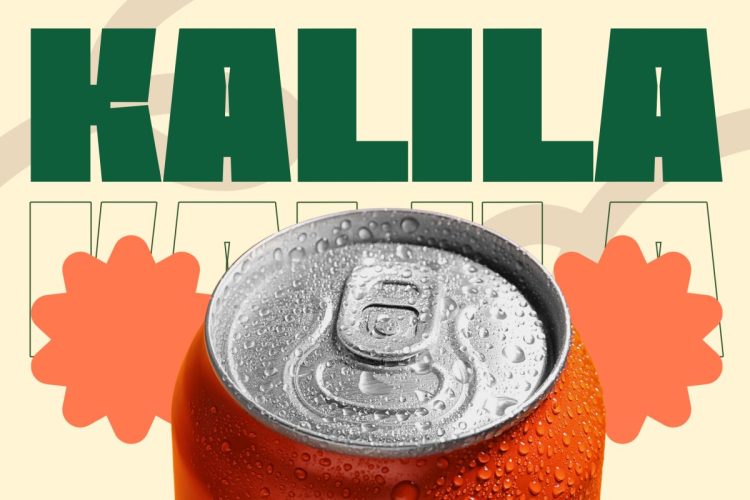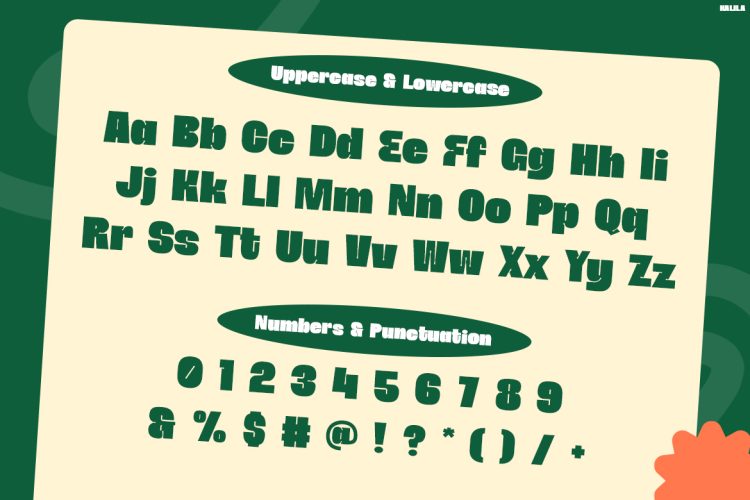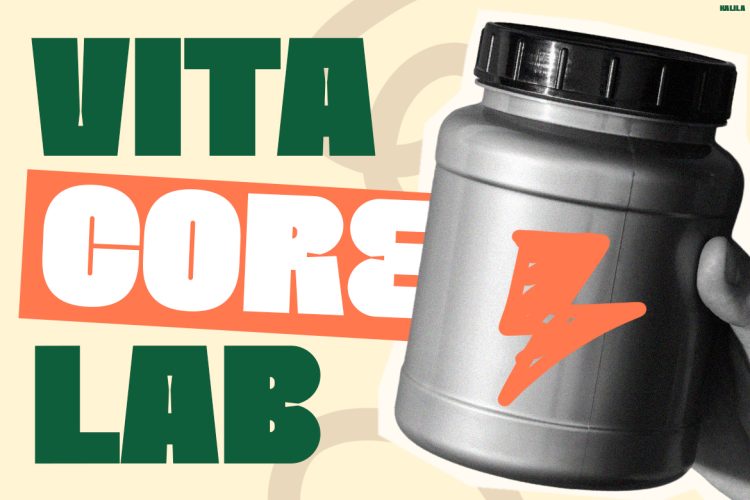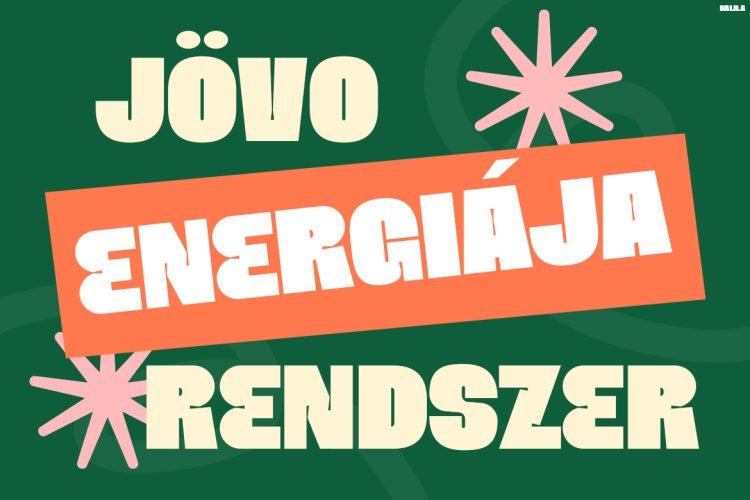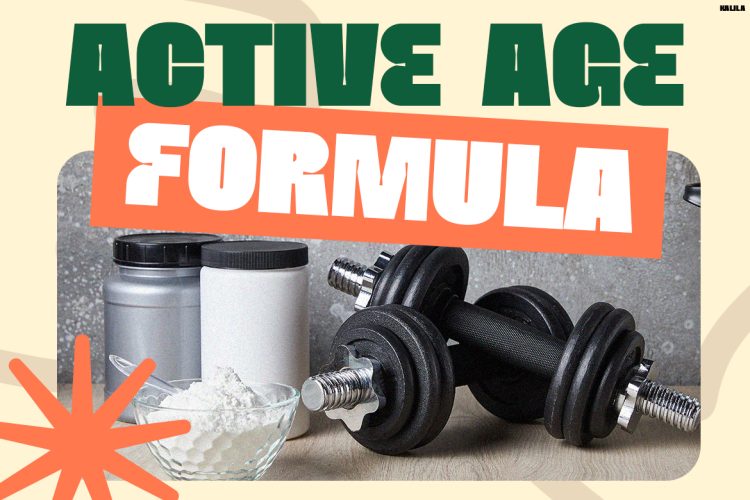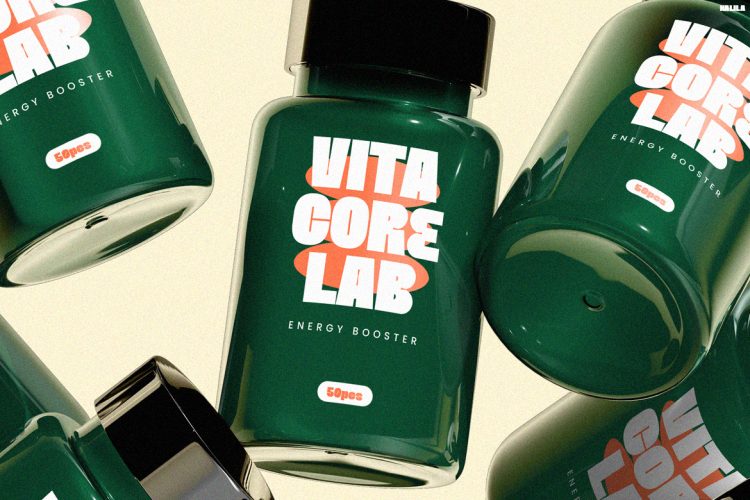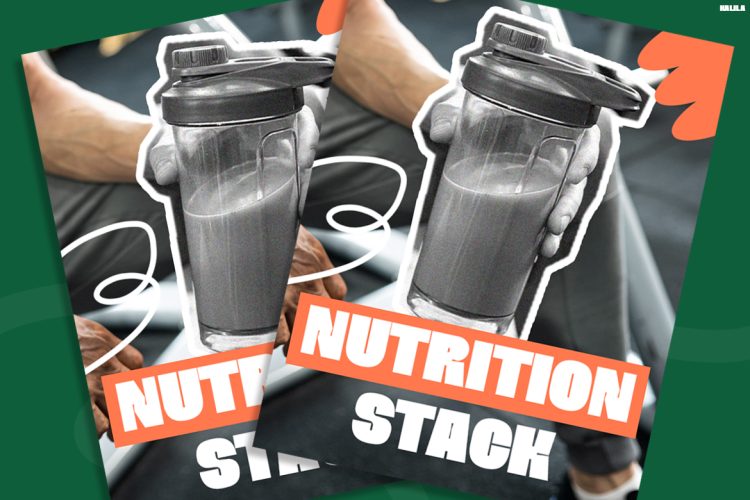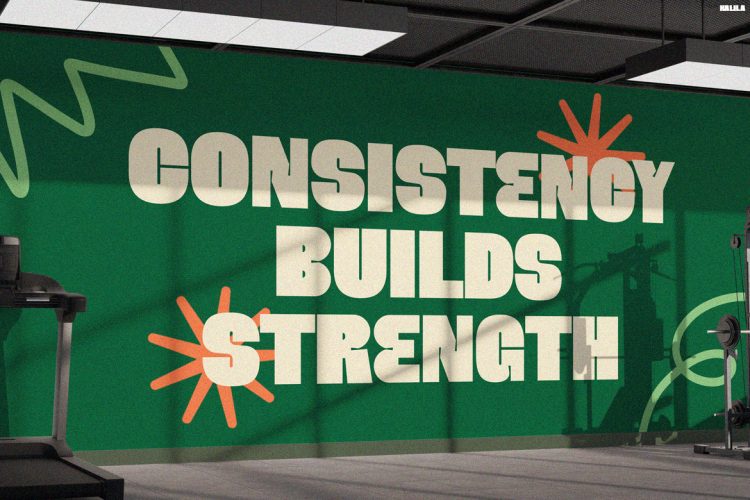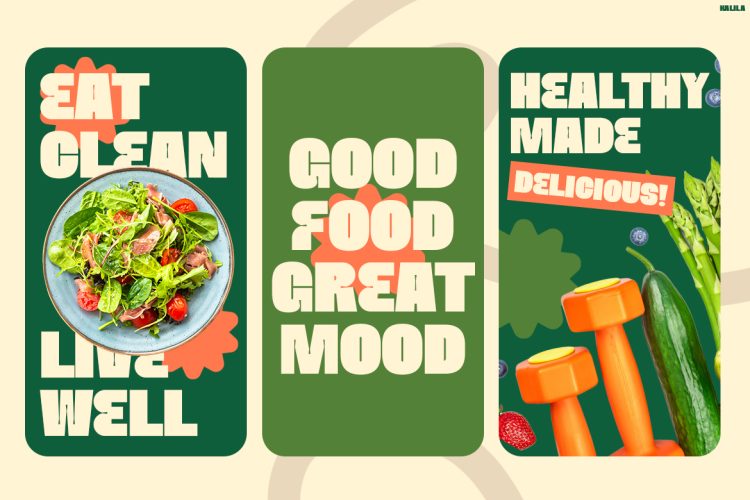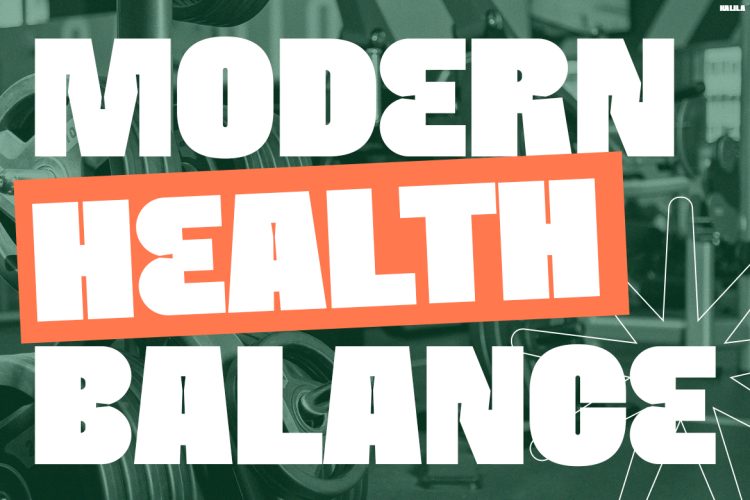
Instagram Font Kalila โ Powerful Typography for Supplements, Vitamins & Wellness Brands
Instagram Font Kalila is a bold display font created for sports supplements, vitamins, and active lifestyle branding. Not only does it feature strong geometric letterforms, but it also delivers a clean and professional appearance. Moreover, its powerful structure helps products stand out on crowded shelves and digital marketplaces. In addition, the bold shapes create instant visual impact, making packaging and promotional materials more memorable. Furthermore, Kalila balances strength and readability, ensuring every headline remains clear and effective. As a result, brands can communicate confidence, energy, and trust more successfully. Meanwhile, its modern aesthetic aligns perfectly with today’s health-conscious market. Additionally, the font supports 67 languages, allowing brands to connect with global audiences. Therefore, it is an excellent choice for international marketing campaigns.
Kalila is ideal for sports supplement companies, vitamin brands, protein powder manufacturers, wellness businesses, and nutrition startups. Whether you’re creating product packaging, supplement labels, social media graphics, or advertising campaigns, this font delivers a bold and reliable look. Likewise, it works exceptionally well for fitness coaches and health-focused entrepreneurs. Furthermore, its versatile design suits both premium and mainstream brands. Consequently, businesses can maintain a consistent identity across multiple platforms.
Why Choose Kalila?
- Bold Sports Nutrition Style
- Strong Geometric Letterforms
- High-Impact Packaging Design
- Excellent Headline Visibility
- Multilingual Support (67 Languages)
- Perfect for Supplement & Wellness Branding